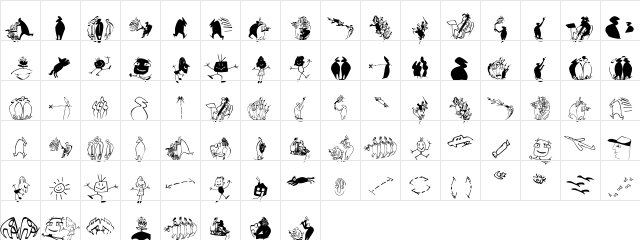
OhLauri Regular
Design Context for OhLauri Typeface
OhLauri is a composed and adaptable typeface that performs quietly and consistently across a wide range of design contexts.